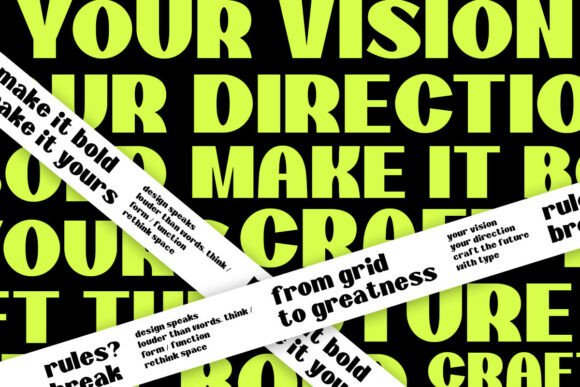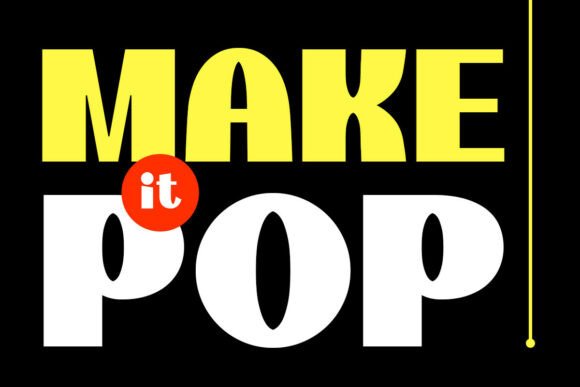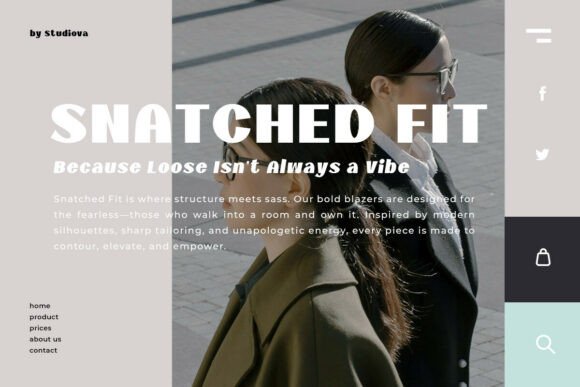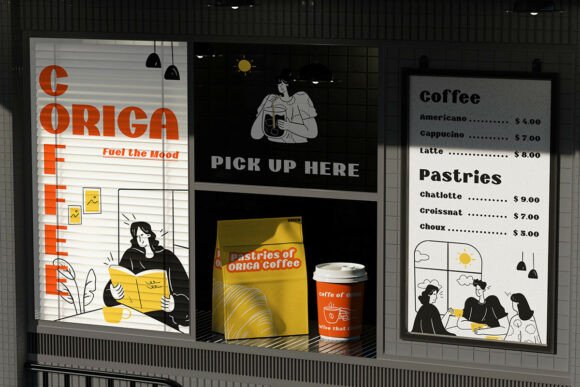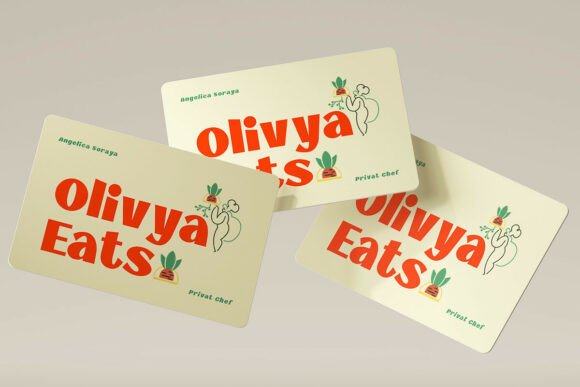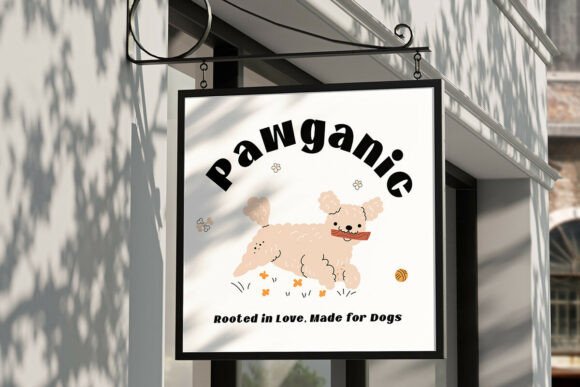
Introduction to Raktor Font
Have you ever stared at a blank canvas, trying to come up with the perfect design to capture your audience’s attention? That’s where the Raktor Font comes in – a game-changer for designers looking to make a bold statement with their creative projects. This semi-condensed sans serif display font is designed to create a strong visual impact, with thick, powerful letterforms and a geometric styling that’s sure to turn heads.
Whether you’re working on a free download for a client or creating a high-quality brand identity, the Raktor Font is the perfect design resource to elevate your work. With its clean and modern vibe, it’s perfect for digital or print design projects that need a confident and strong presence. And with its transparent background, you can easily layer it over other design elements to create a stunning visual effect.
- Designed to be highly legible, with clear lines and a clean aesthetic.
Honest Review: Raktor Font
I recently came across the Raktor Font, a free download that’s been making waves in the design community. As a designer, I was excited to dive in and see what it had to offer.
- High-quality design: The Raktor Font is well-crafted and has a unique aesthetic that’s perfect for creative projects.
- Transparent background: This feature makes it easy to use the font in a variety of contexts, from web design to graphic design.
- Limited character set: While the font is well-designed, the character set is somewhat limited, which may not be ideal for longer texts.
- No bold or italic variants: For designers who need to emphasize text, the lack of bold or italic variants can be a drawback.
Overall, the Raktor Font is a solid addition to any design resource. While it has its limitations, its high-quality design and transparent background make it a great choice for creative projects. I’d definitely recommend it to fellow designers looking for a free, high-quality font.
Tips for Getting the Most Out of Raktor Font
To get the most out of Raktor Font, experiment with different font sizes, styles, and colors to create a unique and eye-catching design. You can also use the font in combination with other design elements to add depth and interest to your designs.
Common Use Cases for Raktor Font
Raktor Font is ideal for use in a variety of creative projects, including logos, business cards, brochures, and social media graphics. The font’s high-quality design and transparent background make it perfect for use in designs that require a professional and modern look.